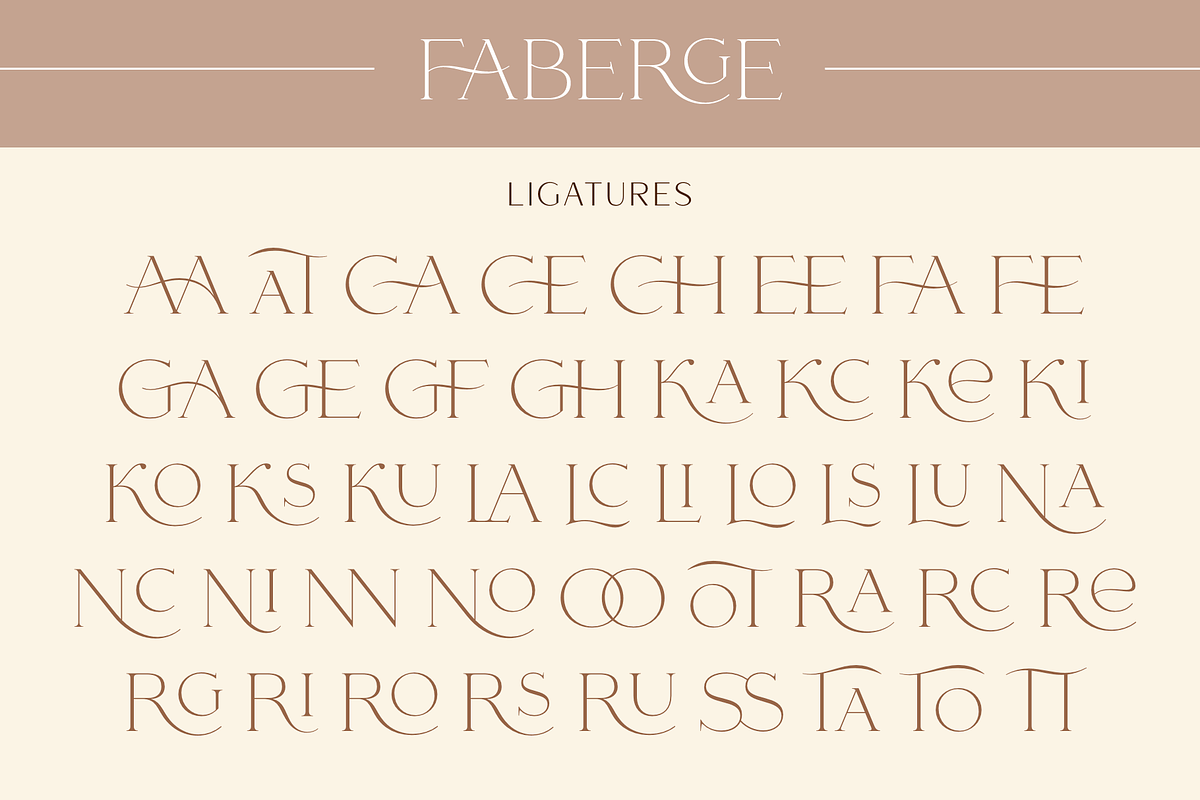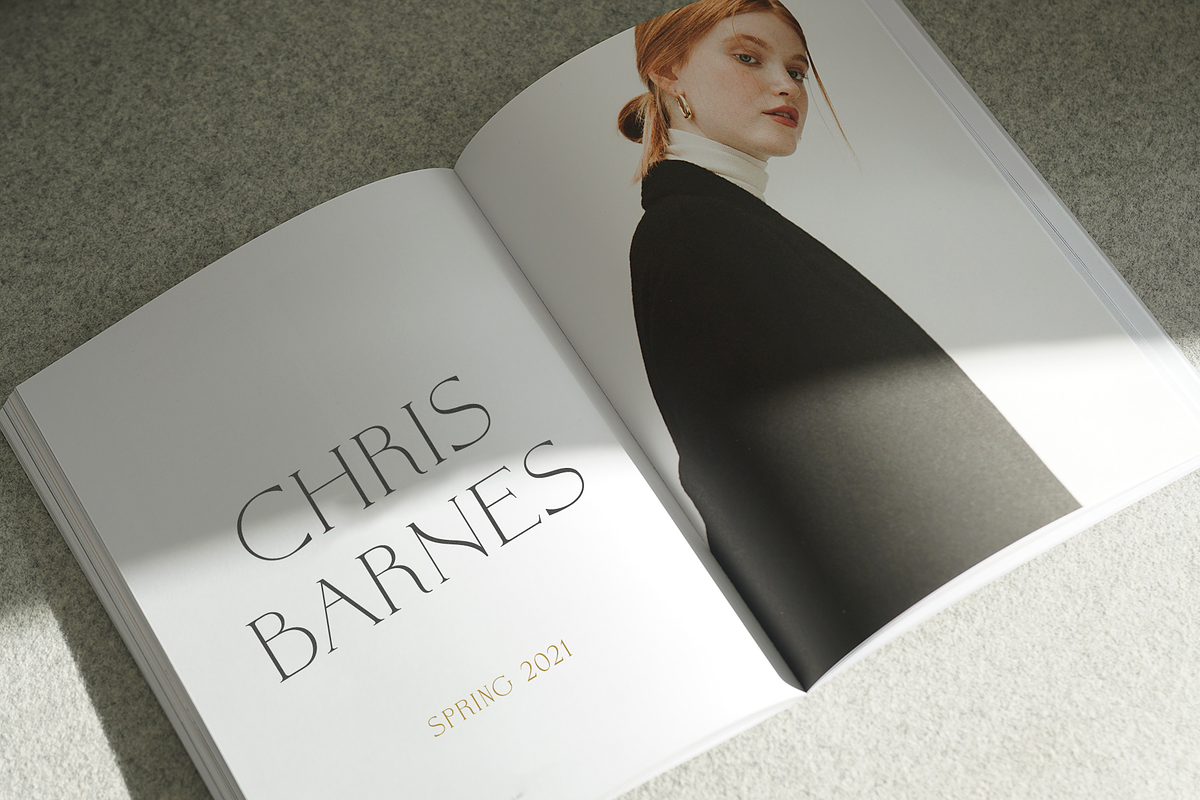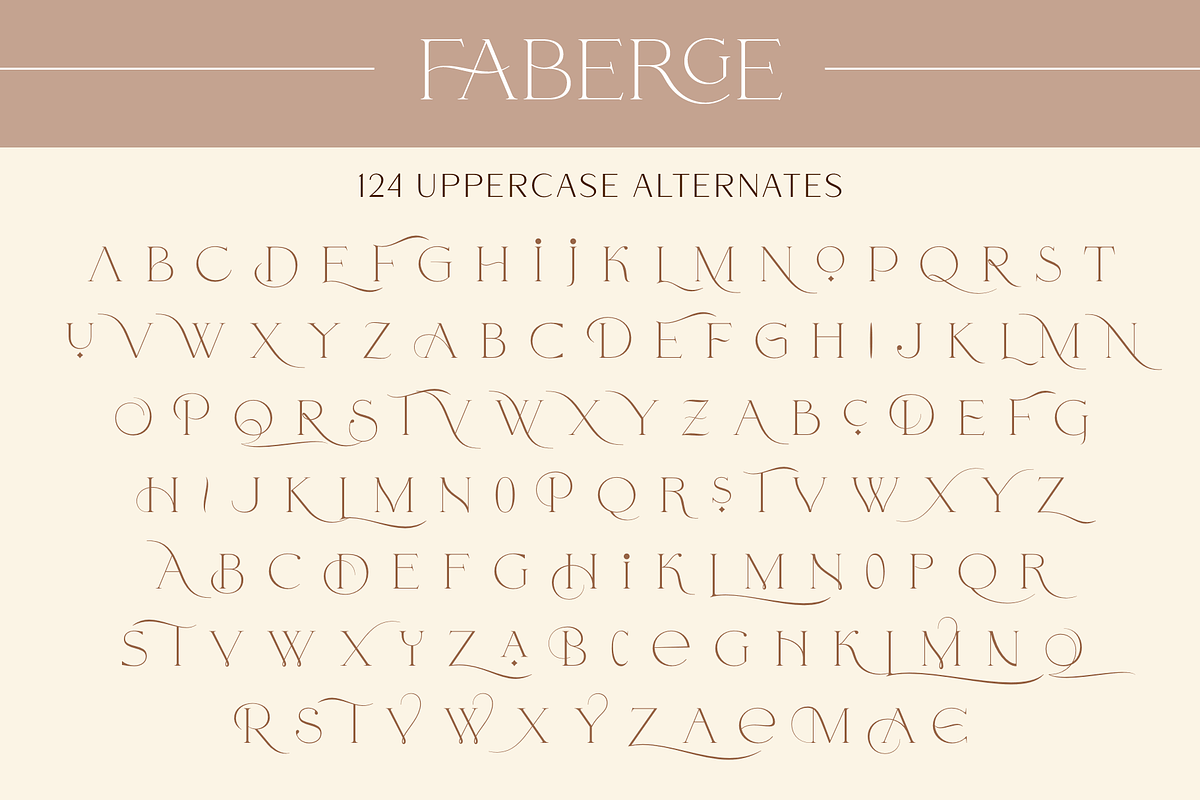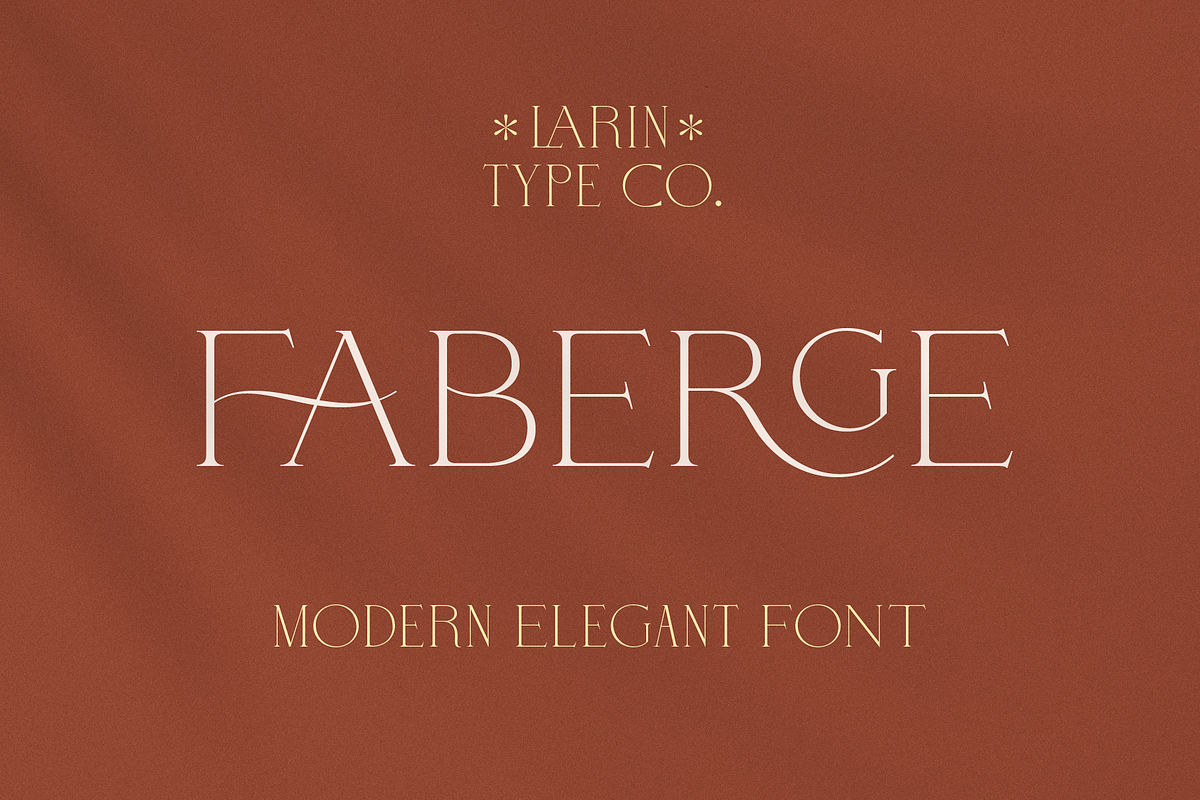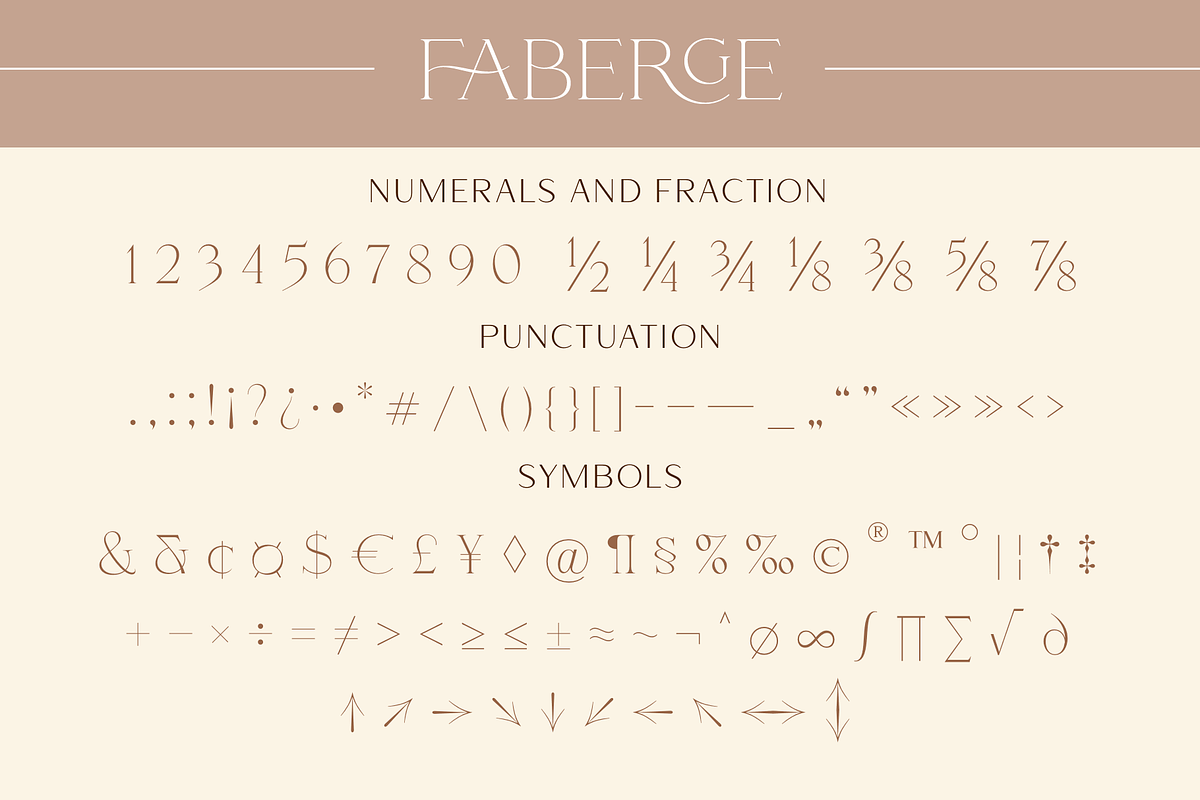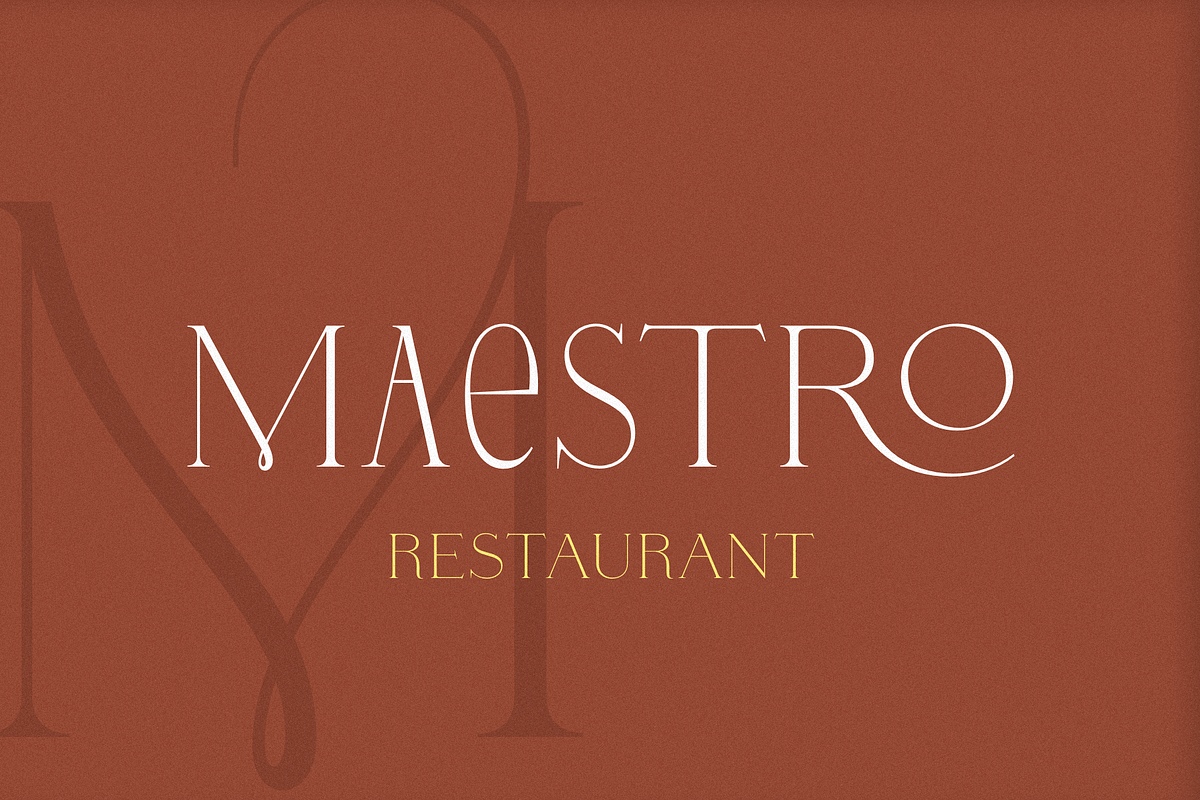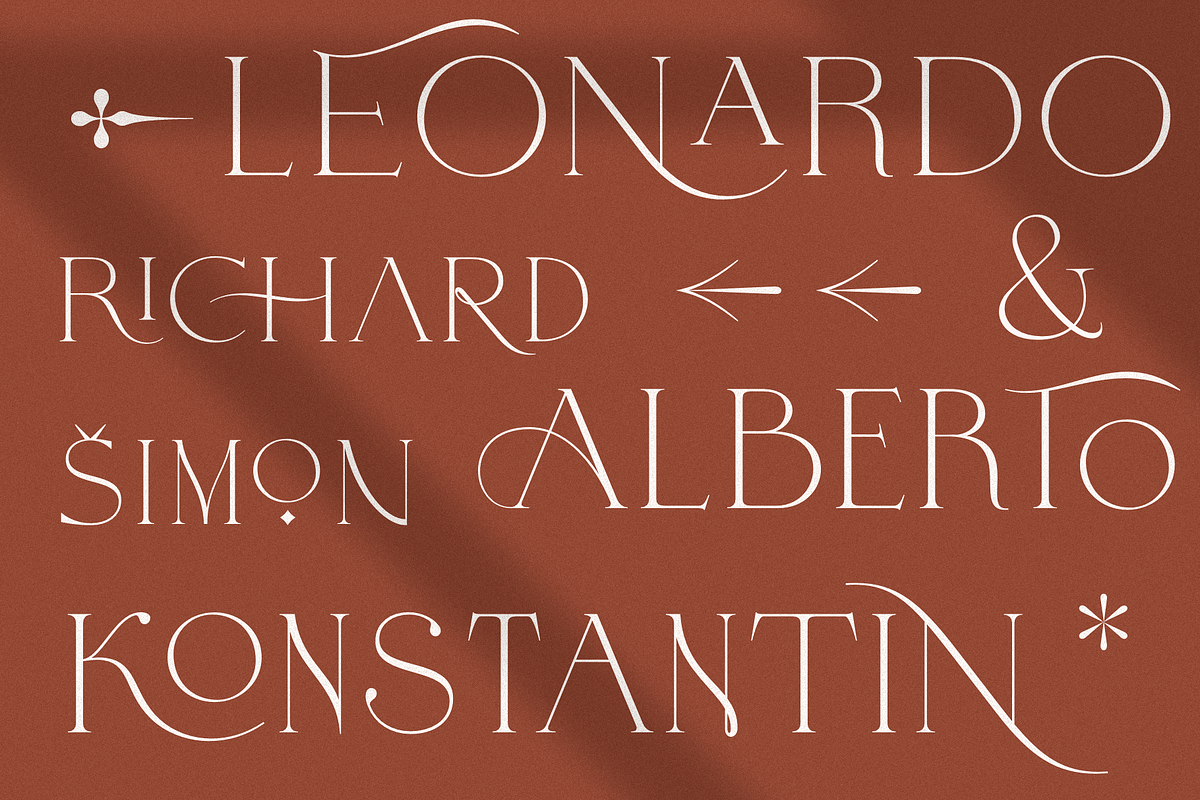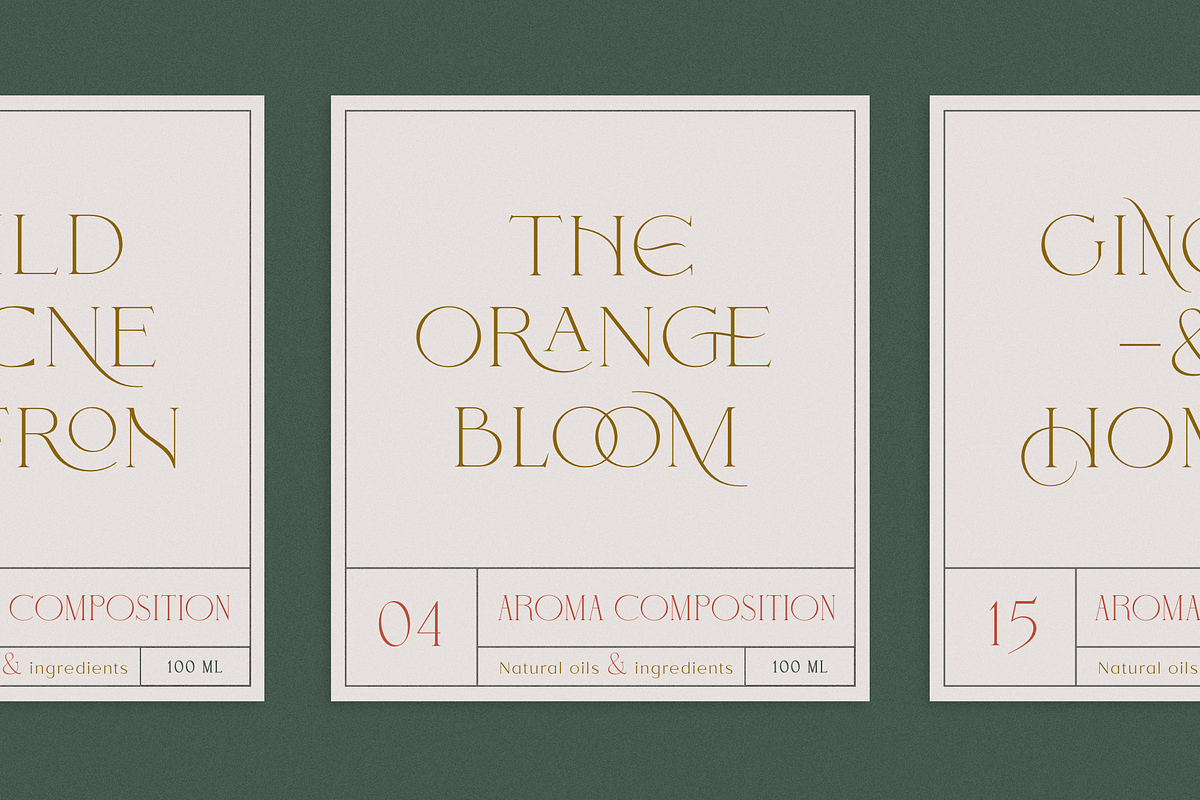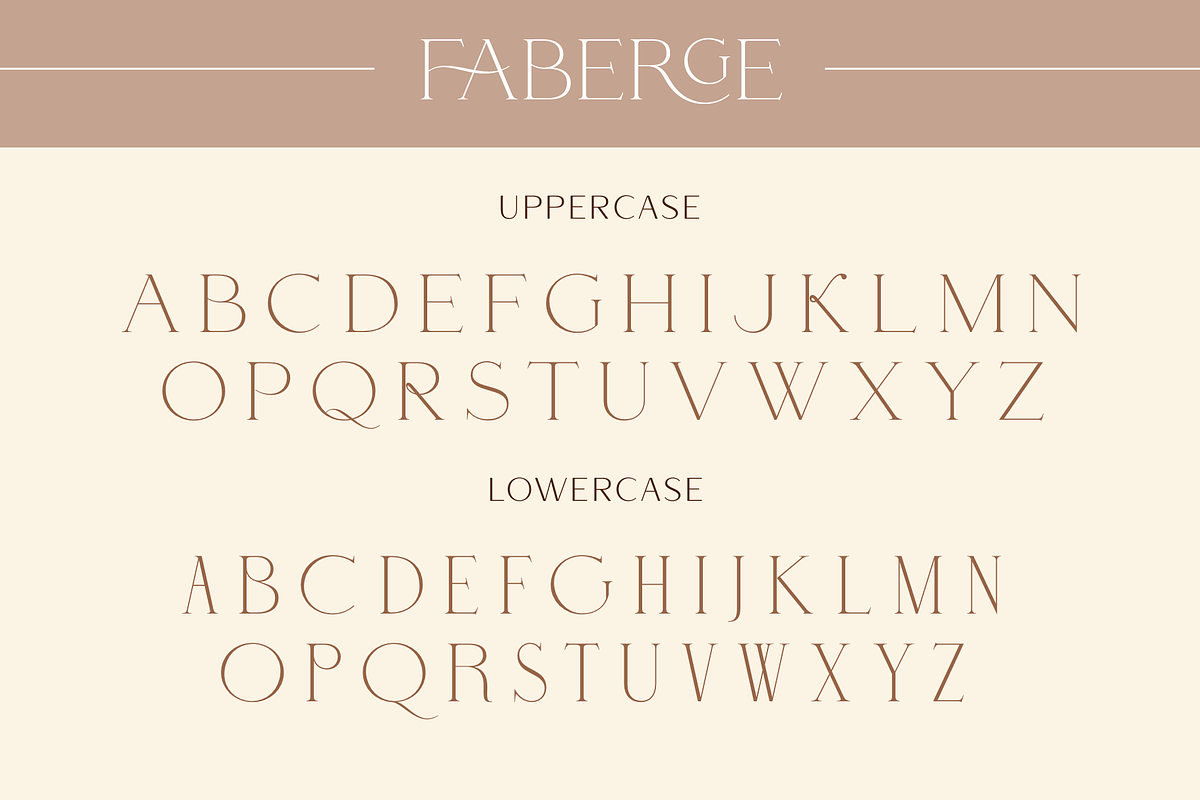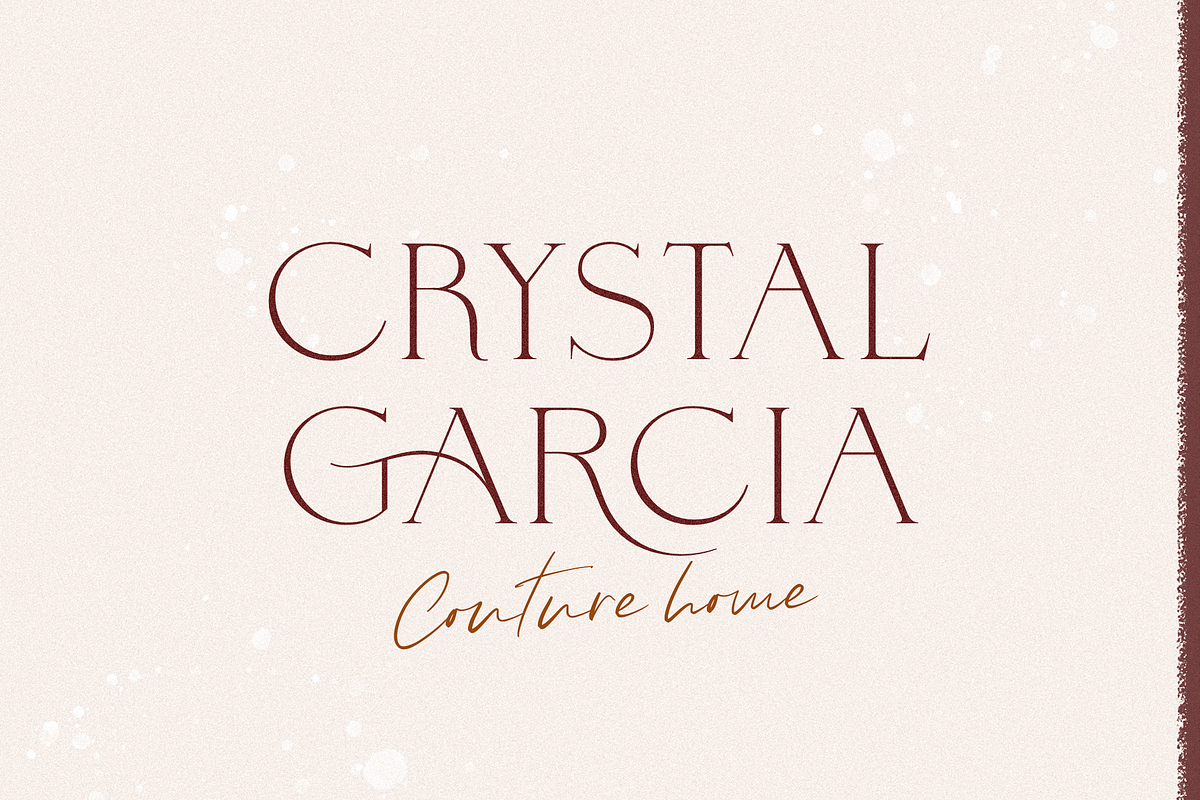
Faberge
FABERGE This is elegant logo serif font.
It has a light weight and playing forms, the uppercase are more elongated and the lowercase are compressed but they have the same height as the uppercase, with this you can play with space and mix them, with this you will expand the boundaries of your ideas for your project.
This font has 44 ligatures ( use uppercase to get them ), 124 alternatives for uppercase and 88 alternatives for lowercase, they will add a touch of playfulness and elegance and make your design unique.
Following international symbols support: ÀÁÂÃÄÅĄÇĆÈÉÊËĘÌÍÎÏÐÑŃŁÒÓÔÕÖØÙÚÛÜŚŠŸÝŹŻŽßàáâãäåçèéêëìíîïðñòóôõöøùúûüýÿąćęłńśšźżž
Full alphabet with Uppercase and Lowercase A-Z
Numbers, fractions
Punctuation and symbols
44 Ligatures off Uppercase
124 Alternates for Uppercase
88 Alternates for Lowercase, also ampersand